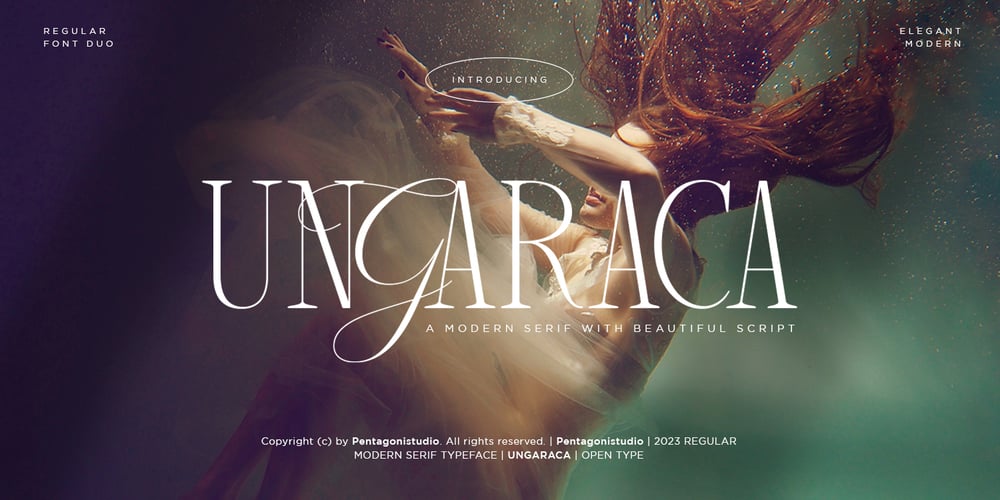
Ungaraca Font Family was designed by Burhan Adiatma and published by pentagonistudio. Ungaraca contains 1 styles and family package options. Ungaraca Is a modern duo inspired by Serif and Script style.SOFTWARE REQUIREMENTS :Fonts and alternates: No special software is required they may be used in any basic program/website app that allows standard fonts, that’s it folks! You can go ahead and get cracking :)Follow my shop for upcoming updates including additional glyphs and language support. Have a Good Day!